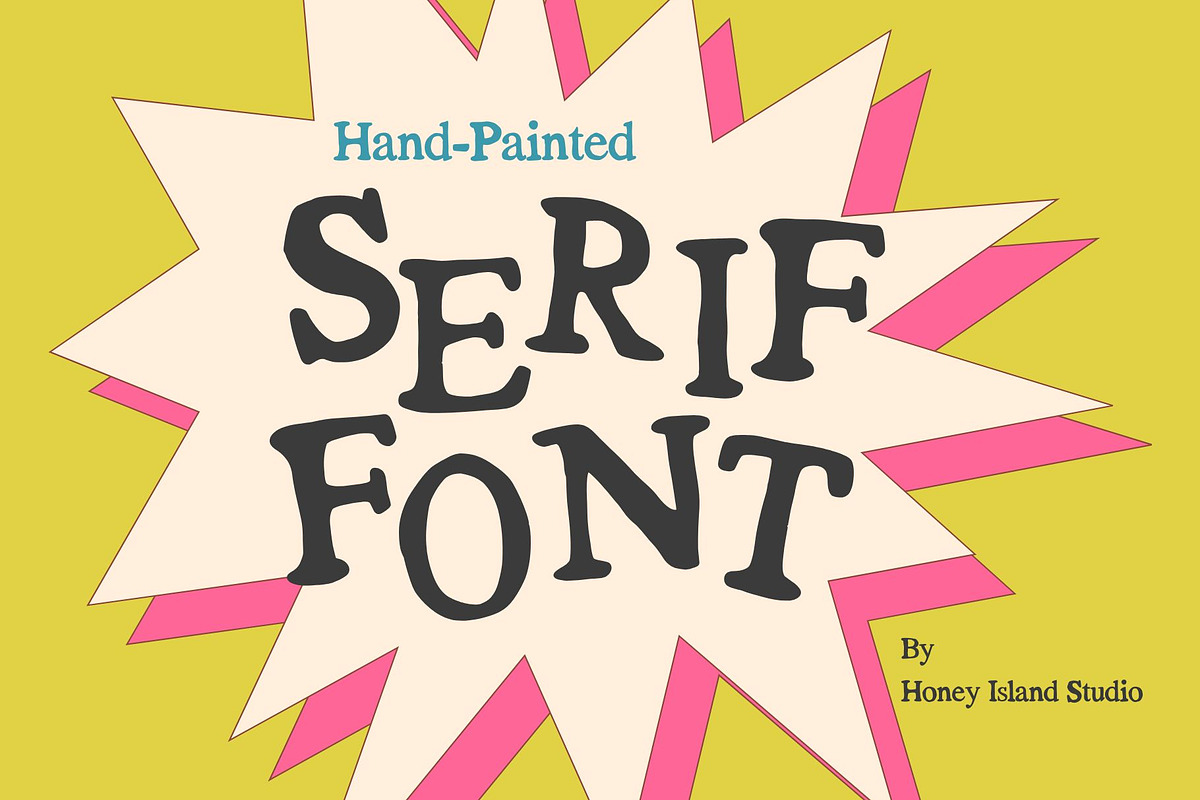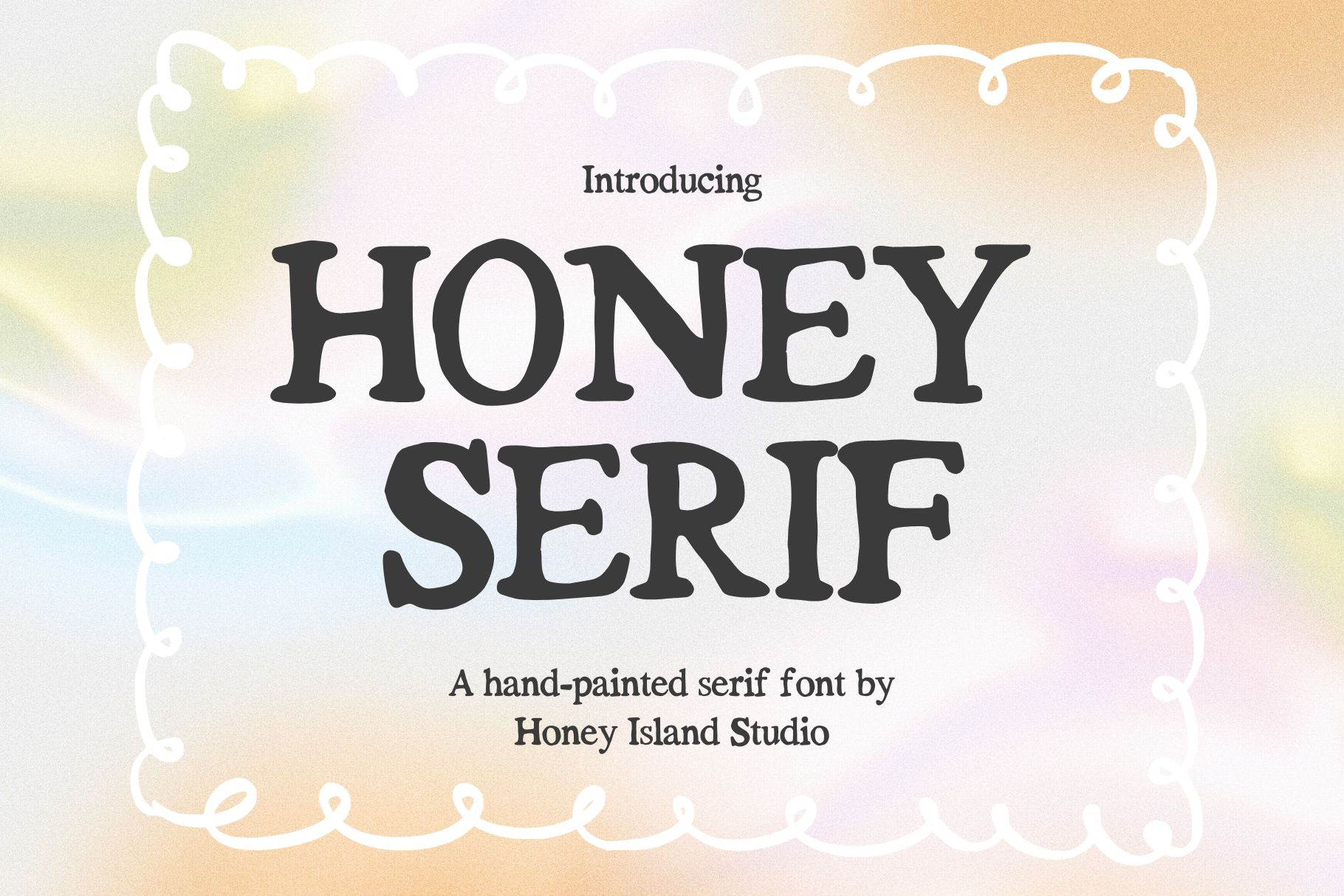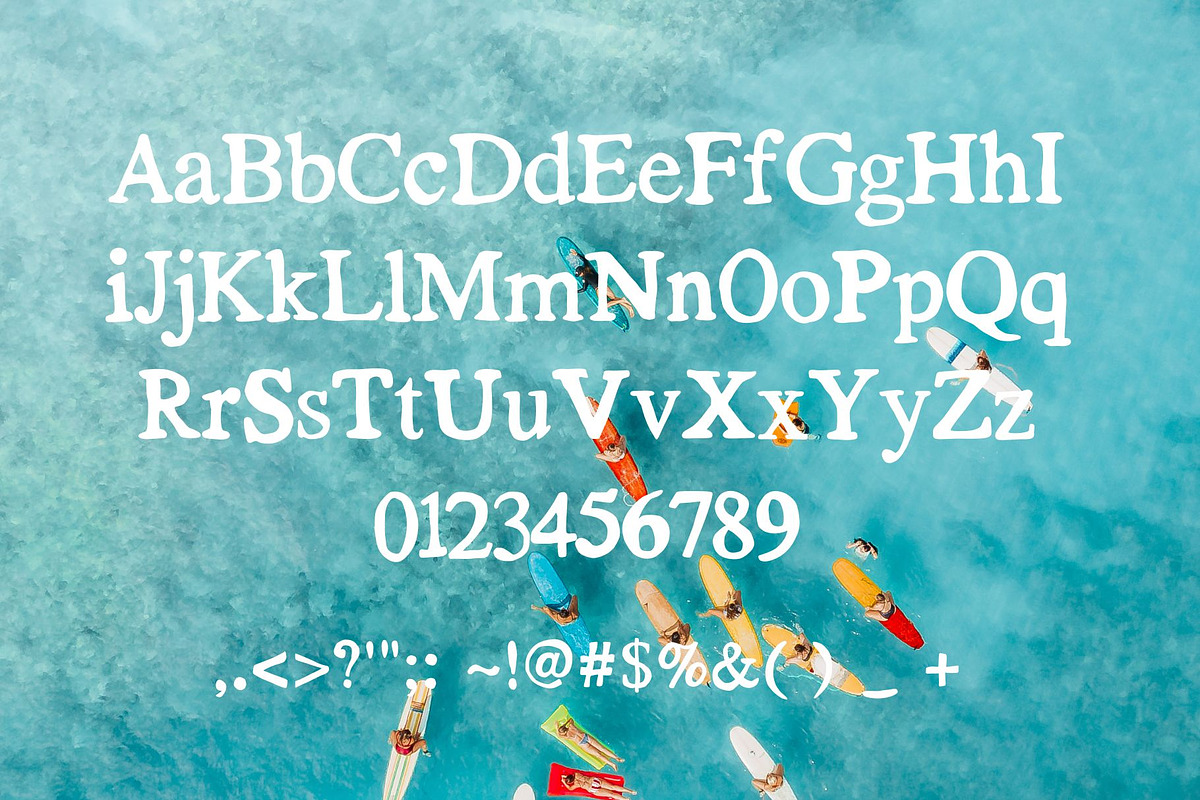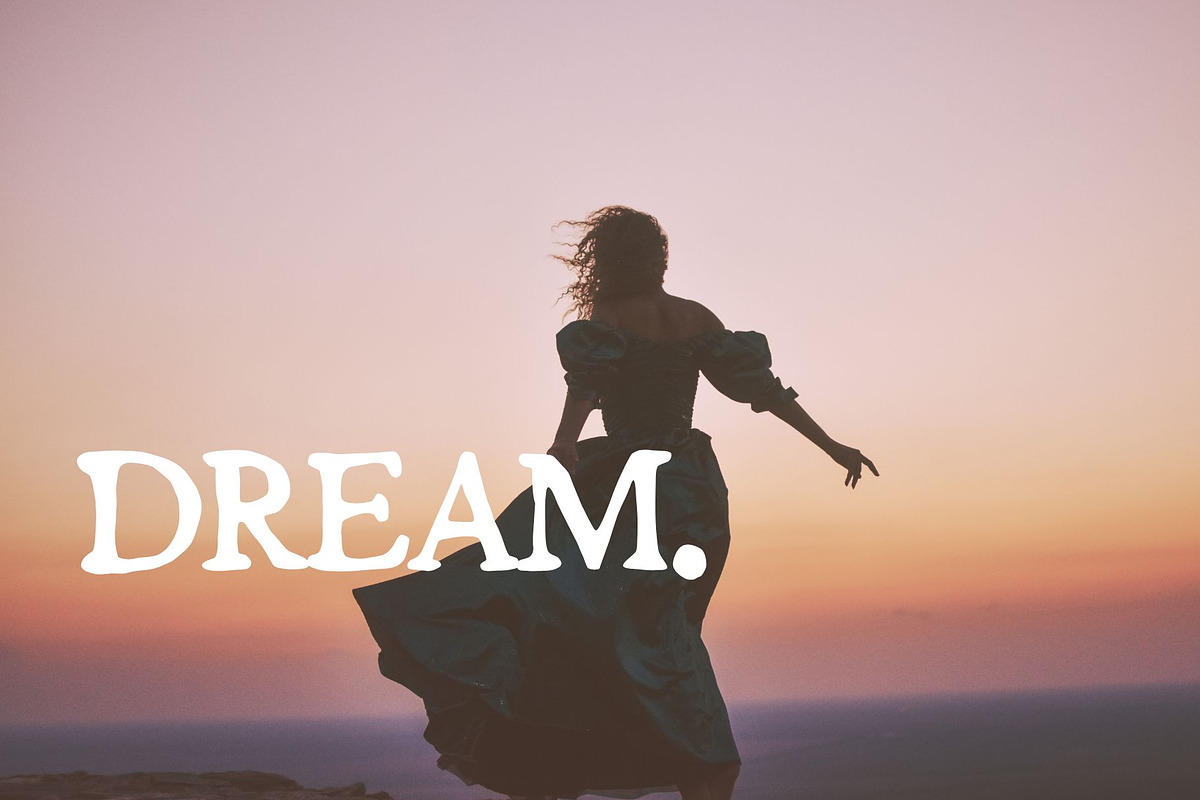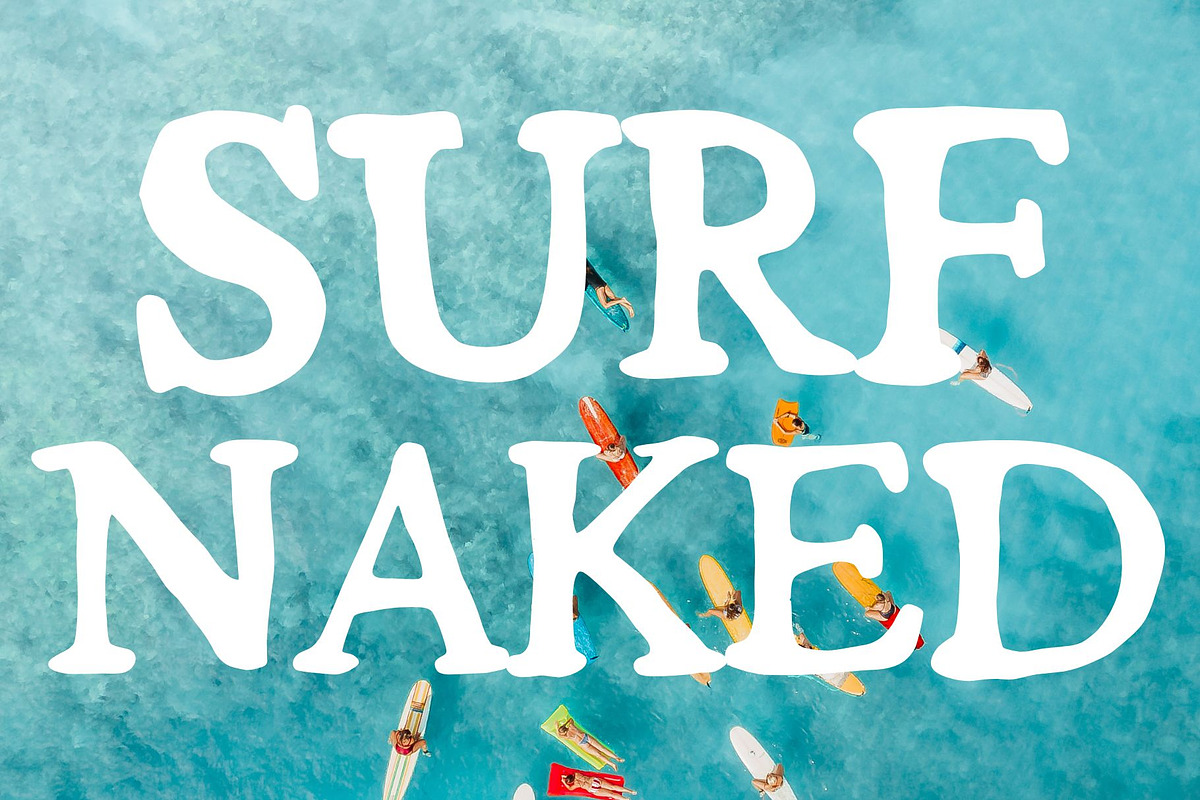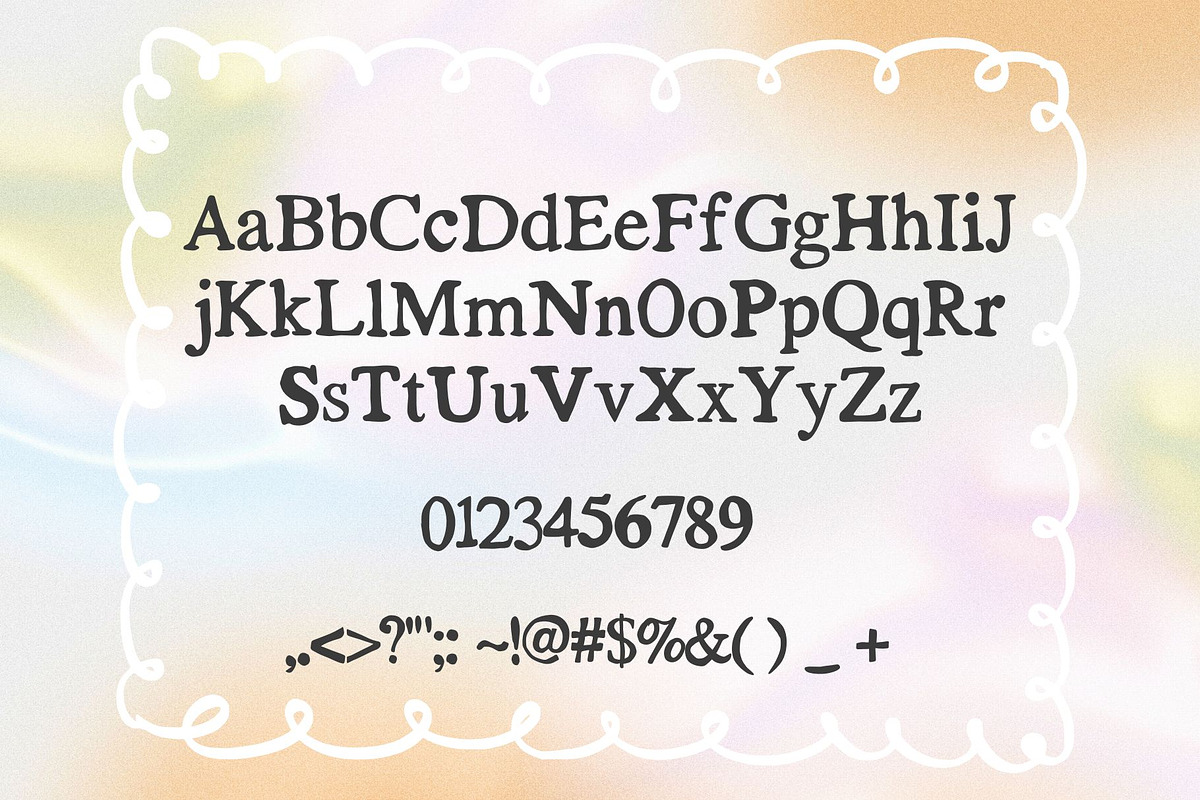
Honey Serif Hand-Drawn Font
Meet Honey Serif – a charming, hand-drawn serif font with just the right blend of elegance and personality. With its delicate serifs, smooth curves, and subtle imperfections, this typeface brings a cozy, organic feel to your designs while maintaining a refined, classic look.
Whether you're working on branding, packaging, wedding invitations, or social media content, Honey Serif adds a handcrafted touch that feels both timeless and approachable. It's light, graceful, and effortlessly versatile—perfect for when you want your typography to speak softly but stand out beautifully.